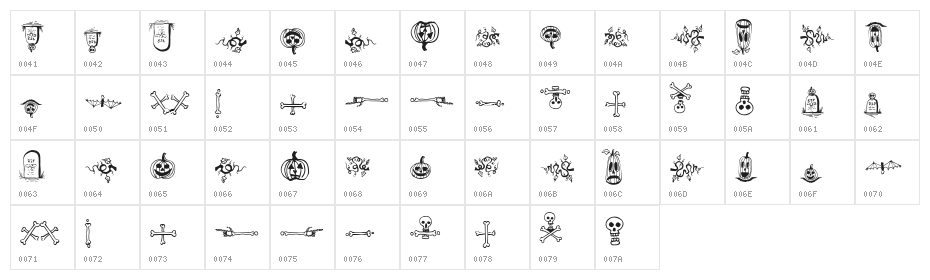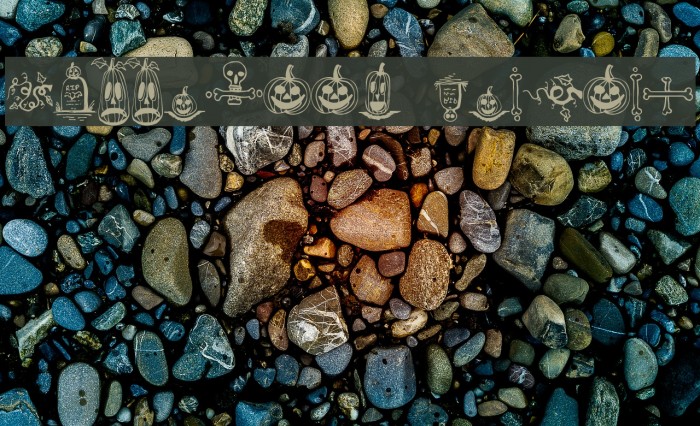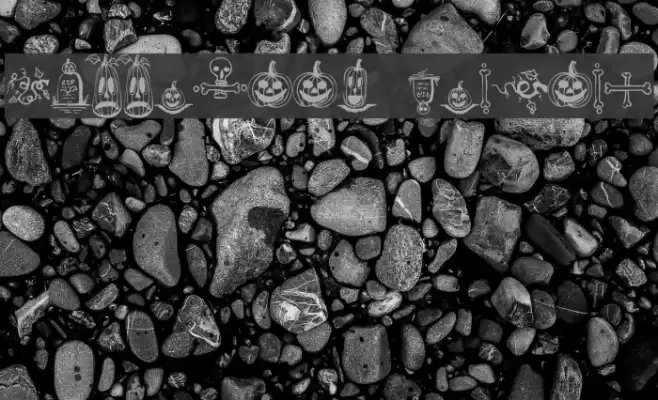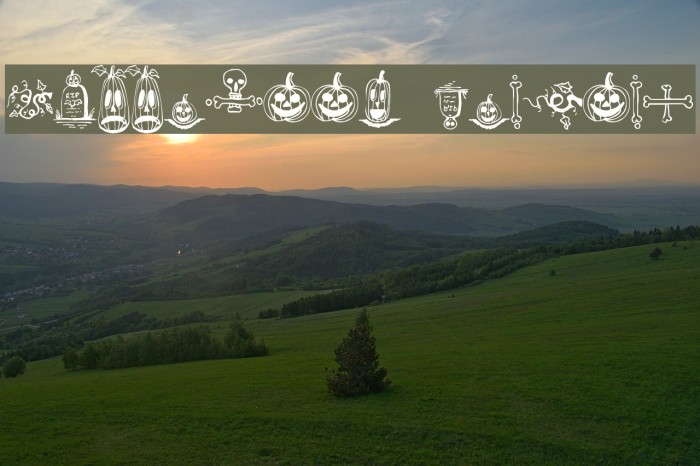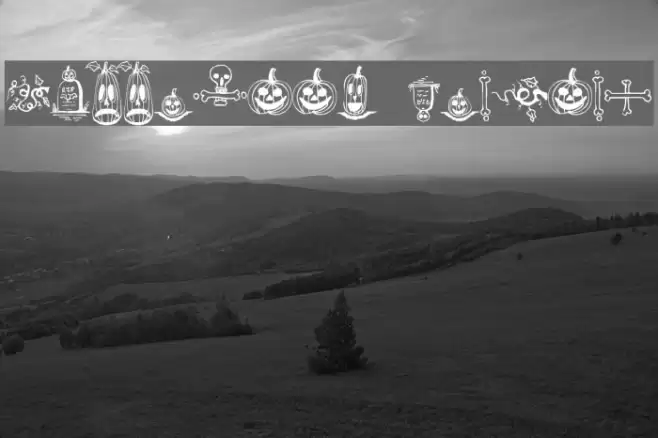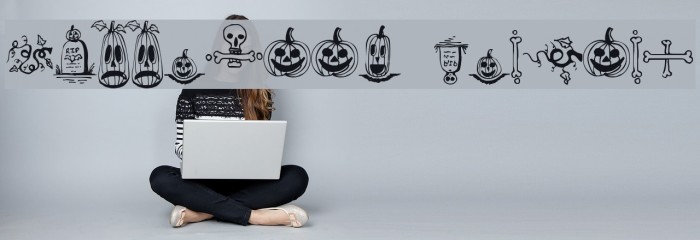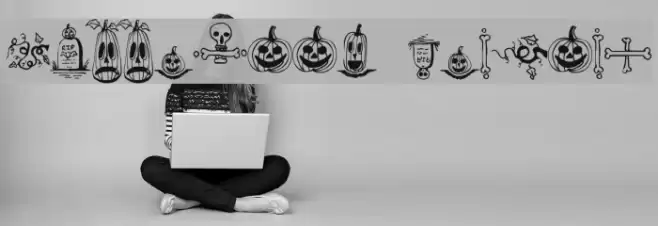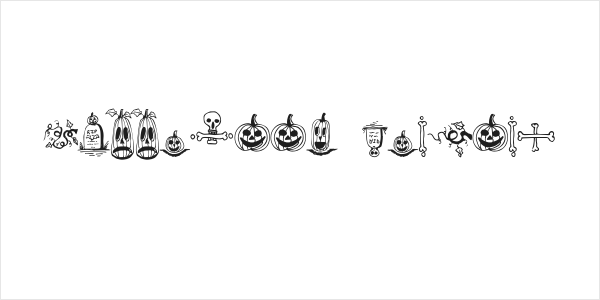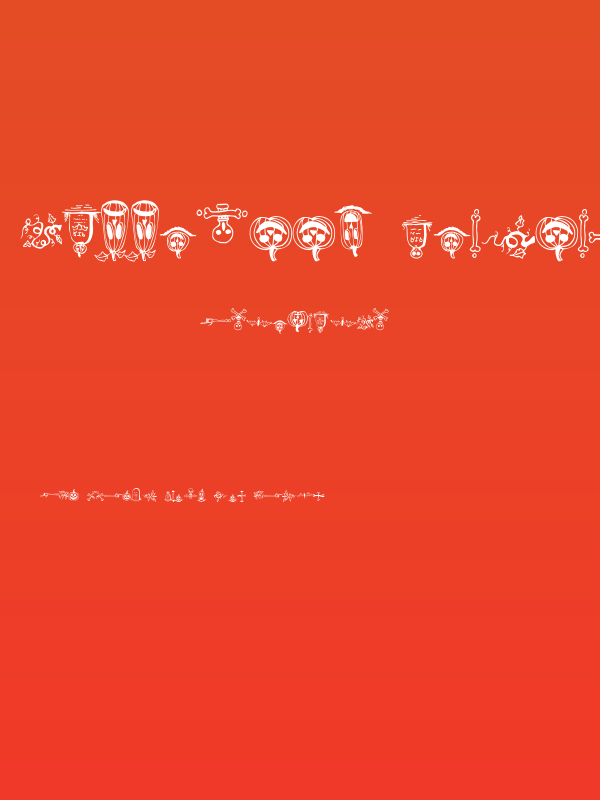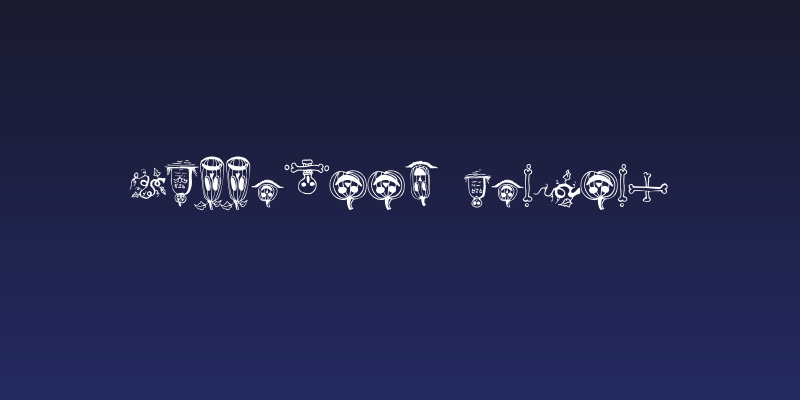
Halloween Borders Font
Halloween Borders Description
A decorative border font featuring Halloween-themed illustrations such as pumpkins, skulls, bones, bats, tombstones, and potion bottles, arranged in horizontal lines to create festive dividers or frames.
Overall StyleDecorative, Thematic, Playful
Use CaseBorders, Dividers, Themed decorations
Proposed ProjectsParty invitations, event flyers, posters, scrapbooking, themed website dividers, greeting cards.